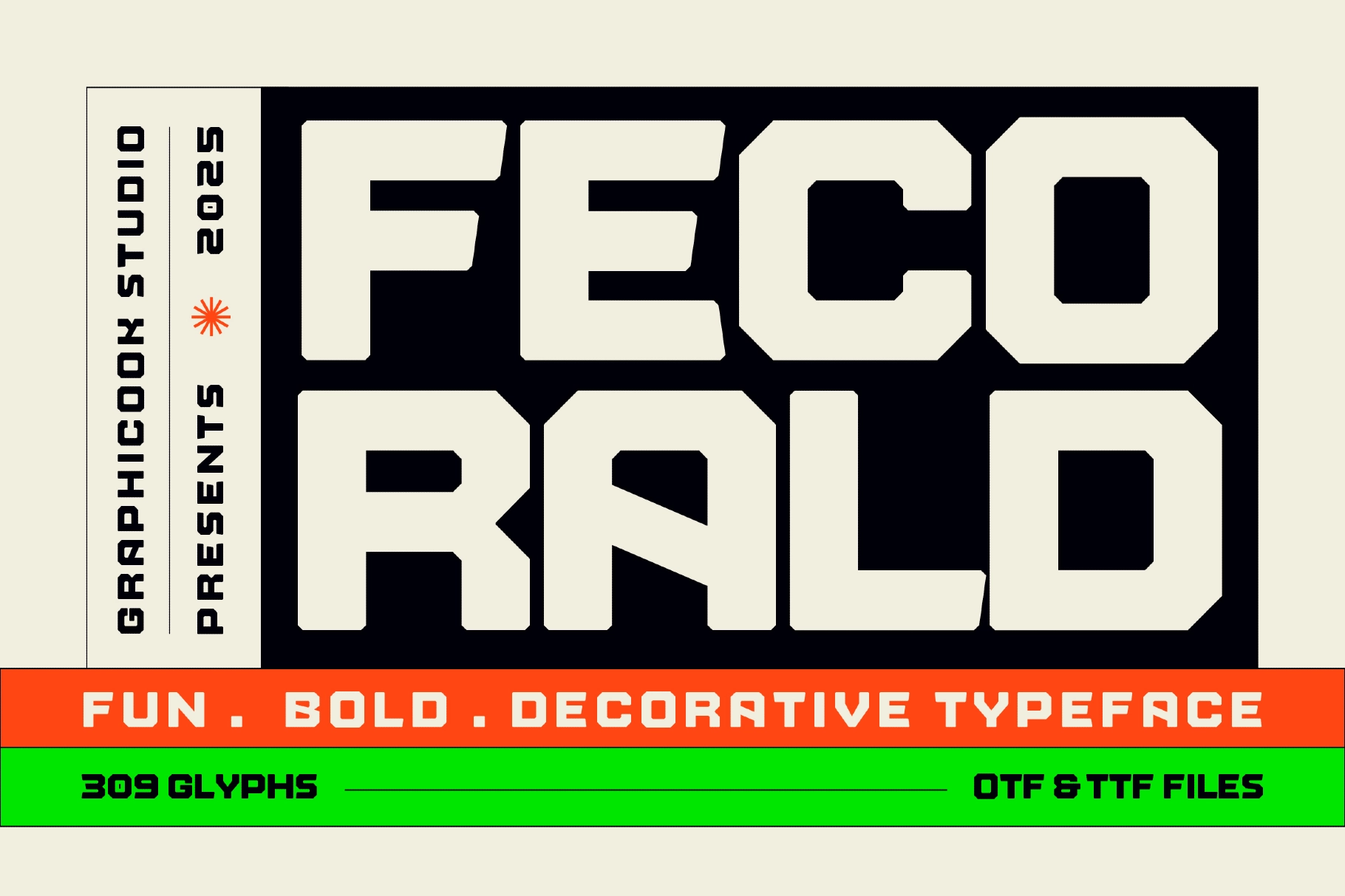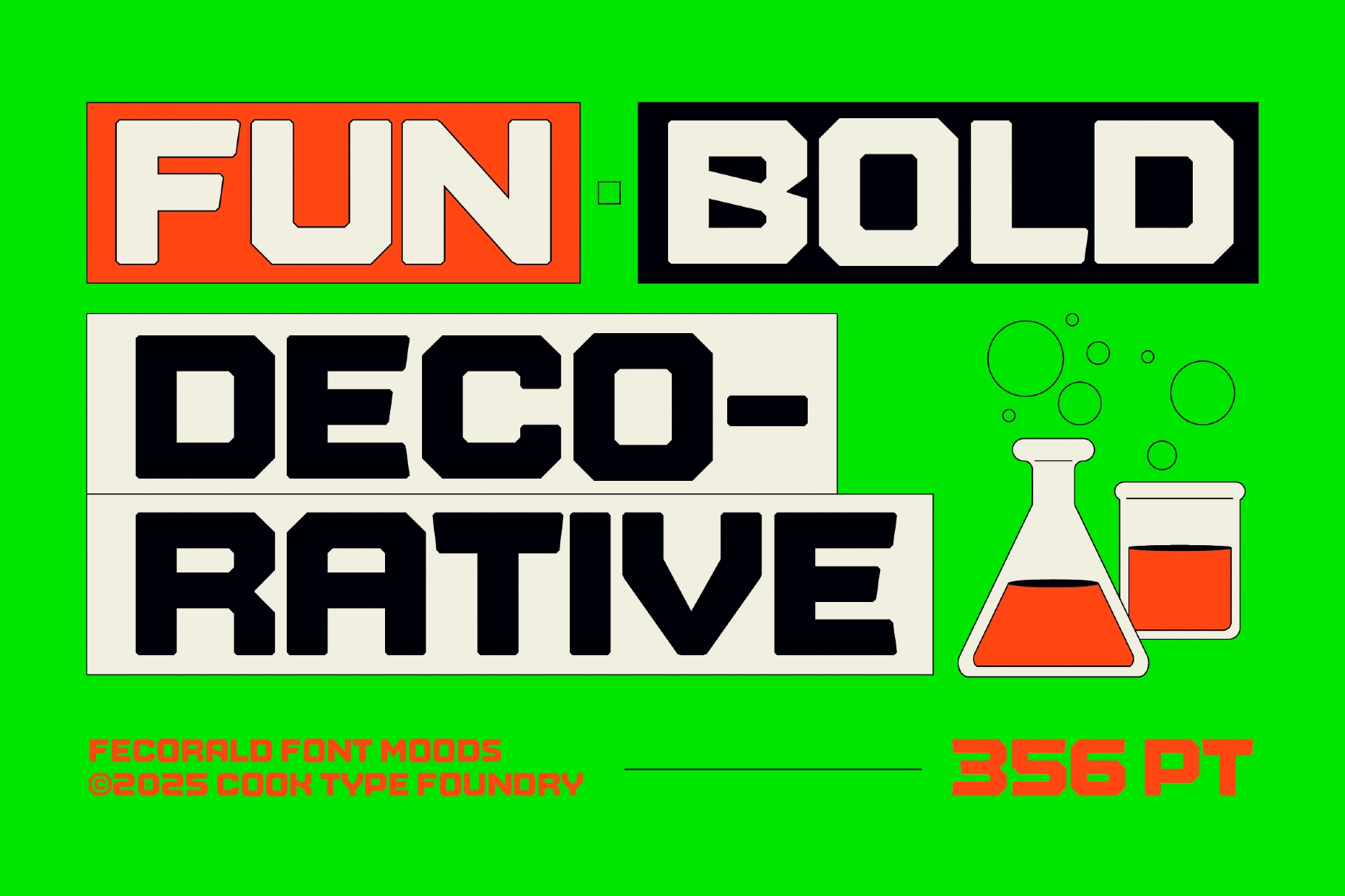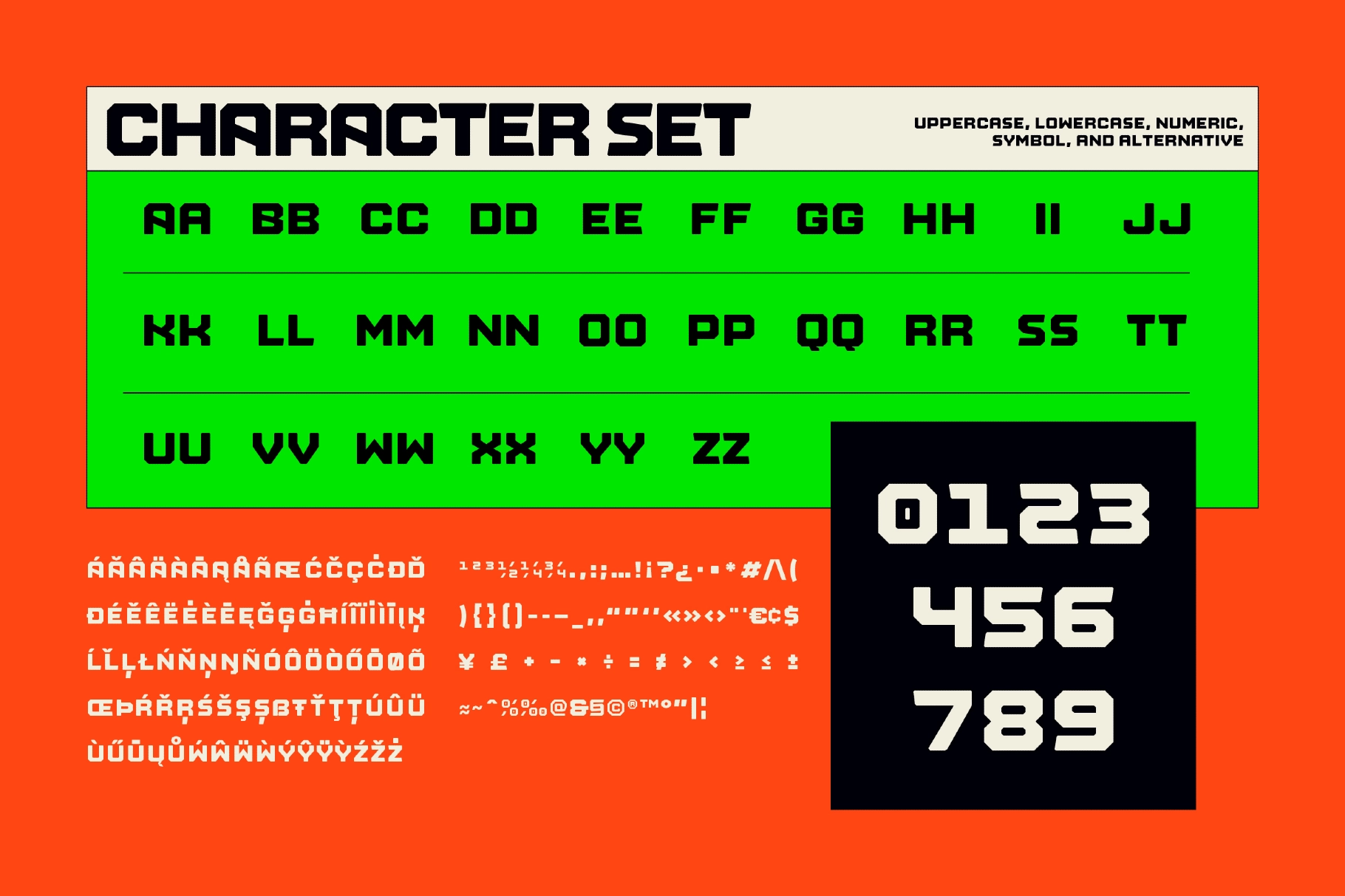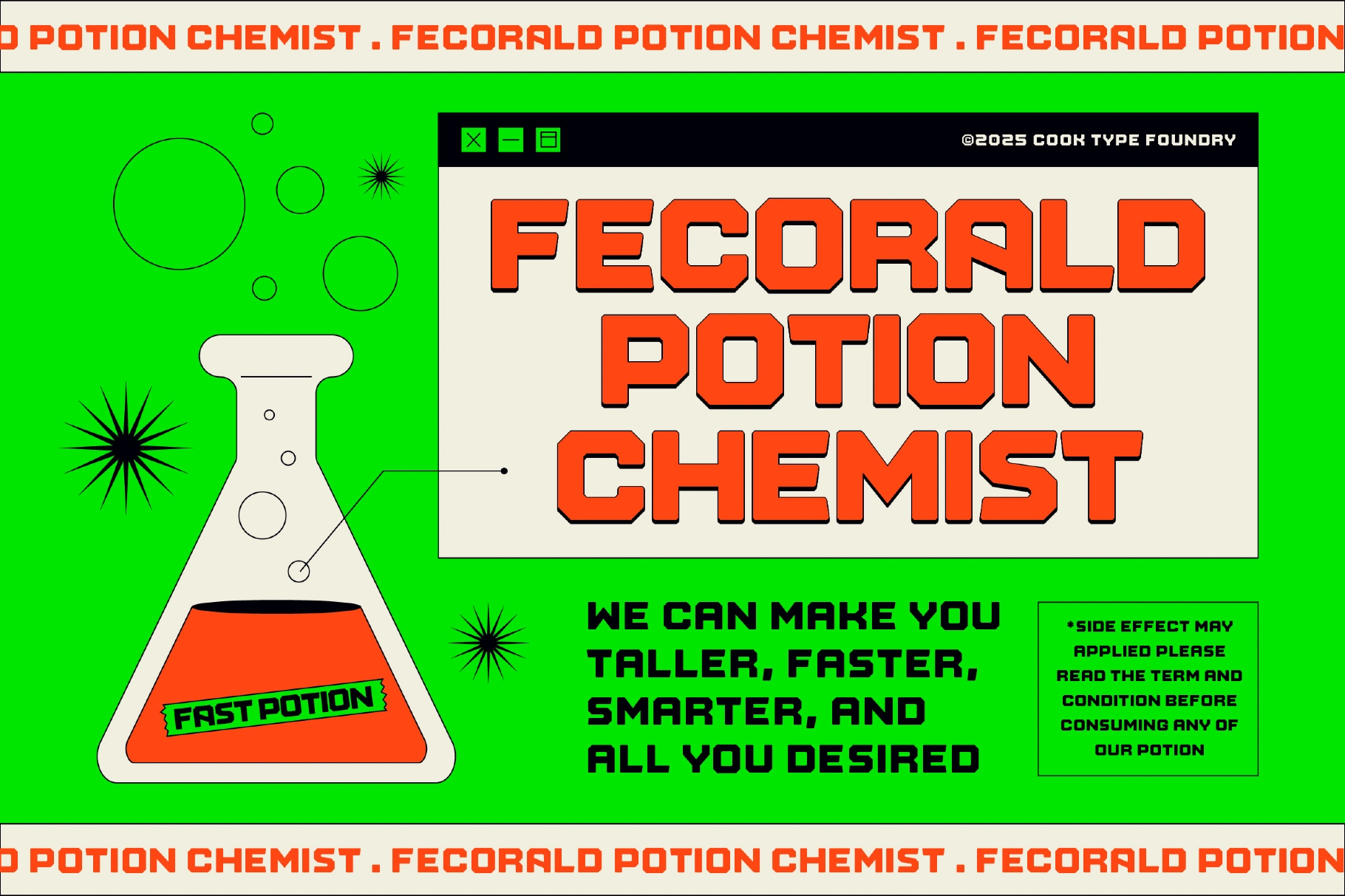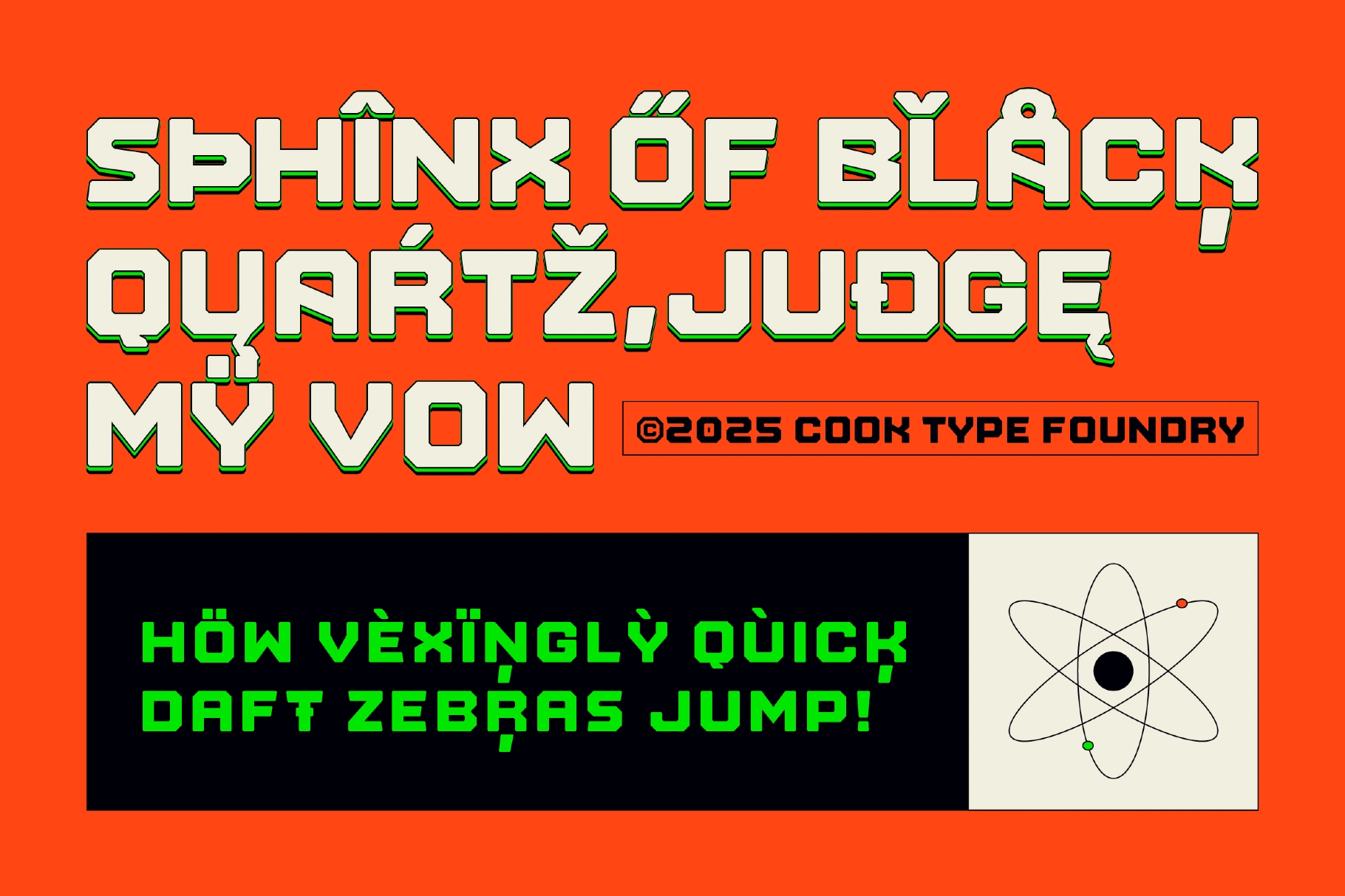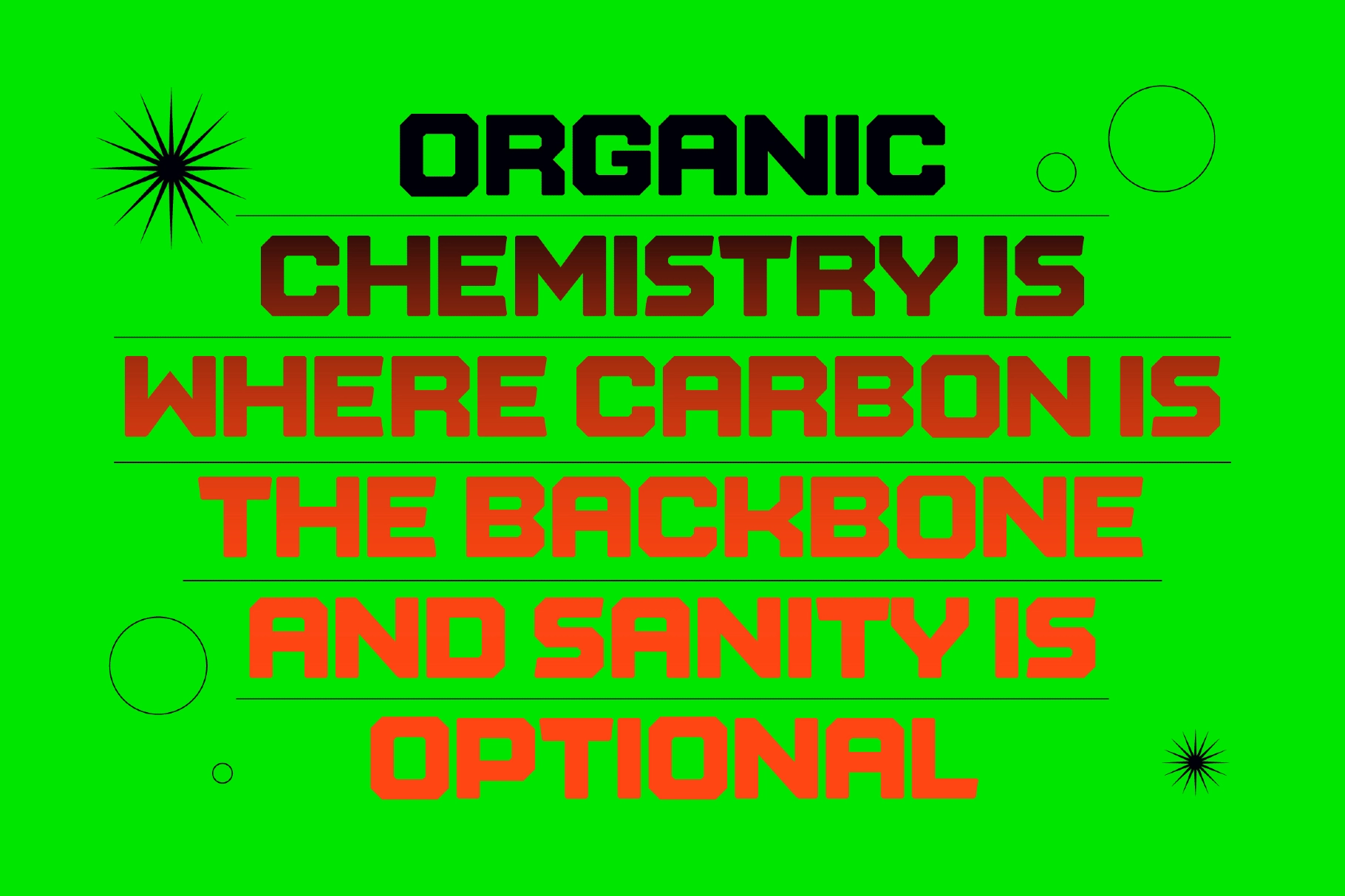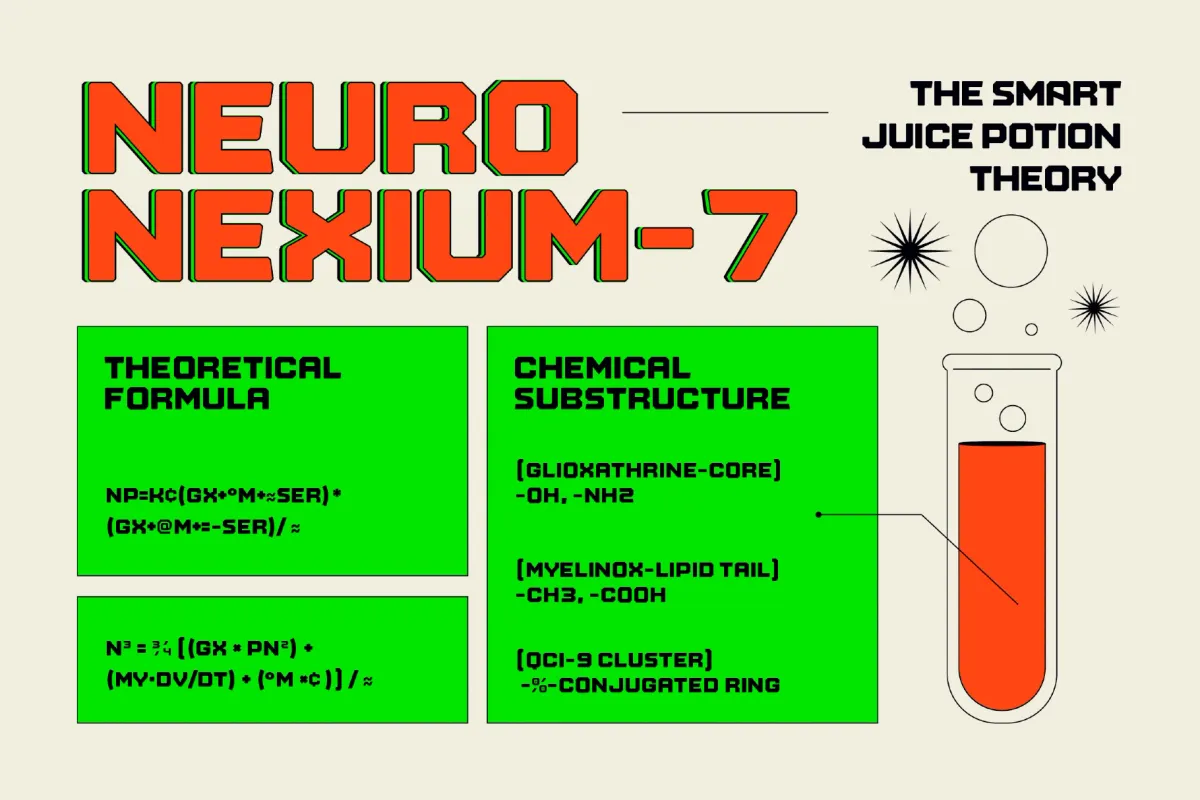
Fecorald Font
Fecorald
Fecorald is a decorative font presented in a bold, modern, futuristic style. Its distinctive shapes convey strength and innovation, making it ideal for game-themed designs, industrial concepts, or tech-focused logos.